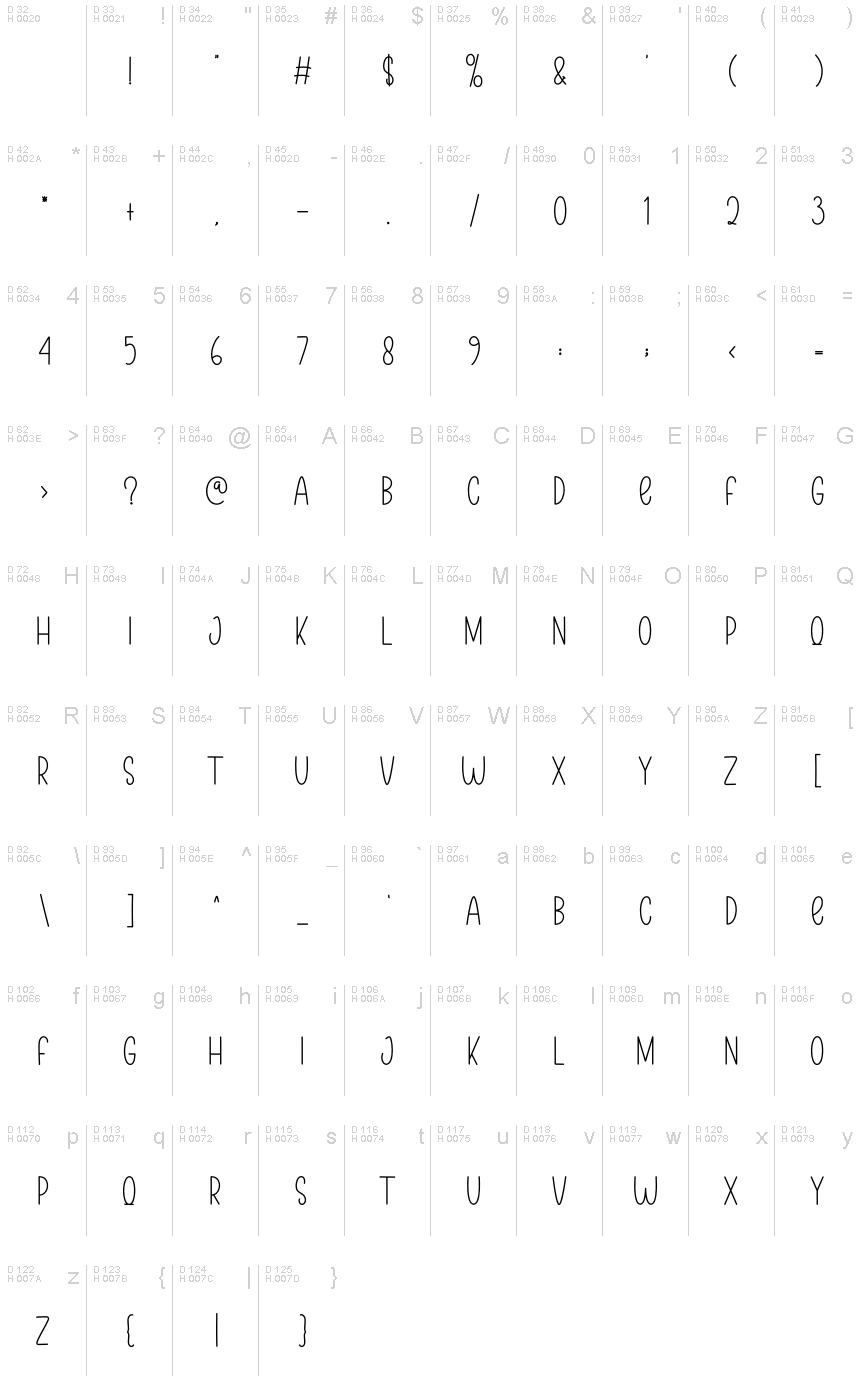
February Minimalist
"February Minimalist" is a captivating handwritten font designed by Andi Moz. Exuding a delicate, light touch, its condensed width lends a refined, elegant aesthetic. The font's minimalist style evokes a sense of understated sophistication, making it a versatile choice for a wide range of design applications, from branding and editorial work to packaging and typography-driven layouts.
Its clean, streamlined appearance and subtle flourishes create a visually appealing, contemporary feel. "February Minimalist" is particularly well-suited for projects seeking a polished, thoughtful typographic presence, effortlessly blending form and function to elevate the overall design.